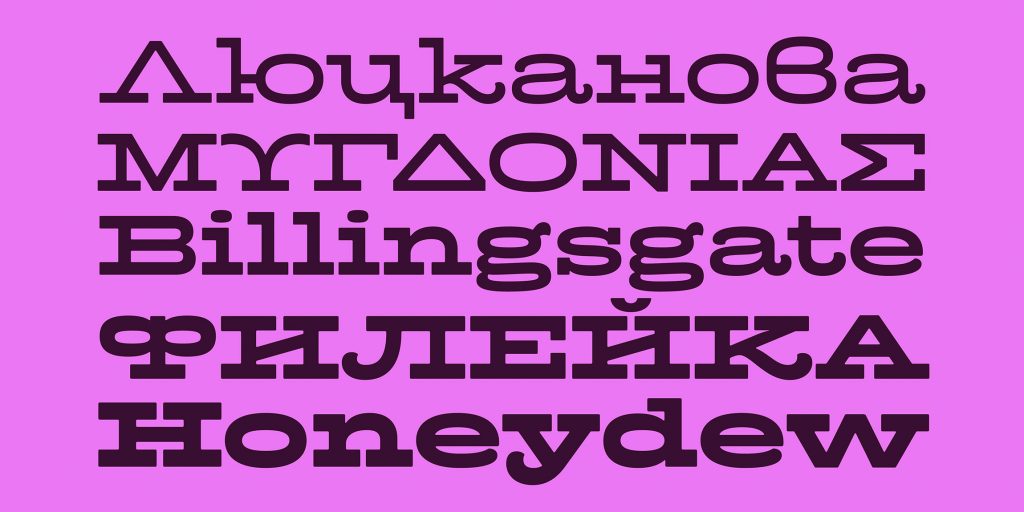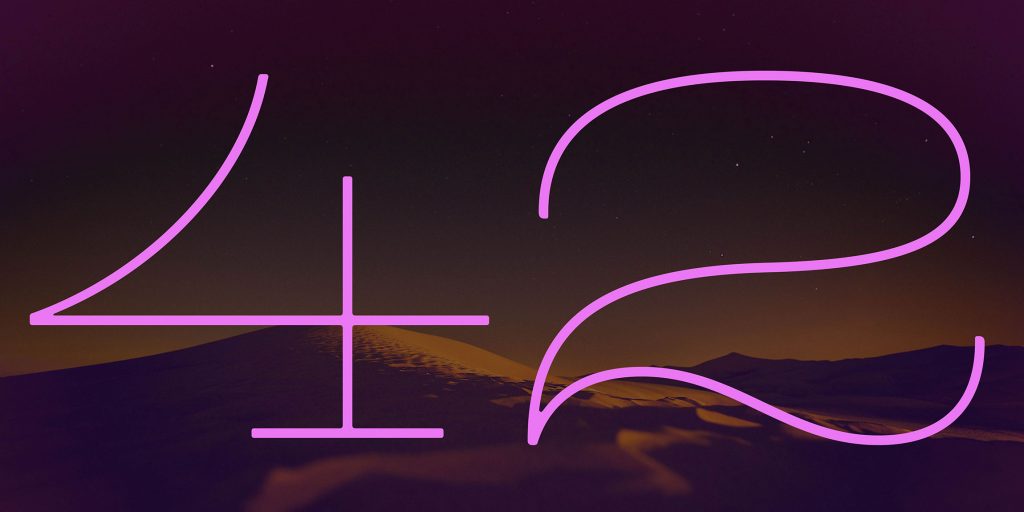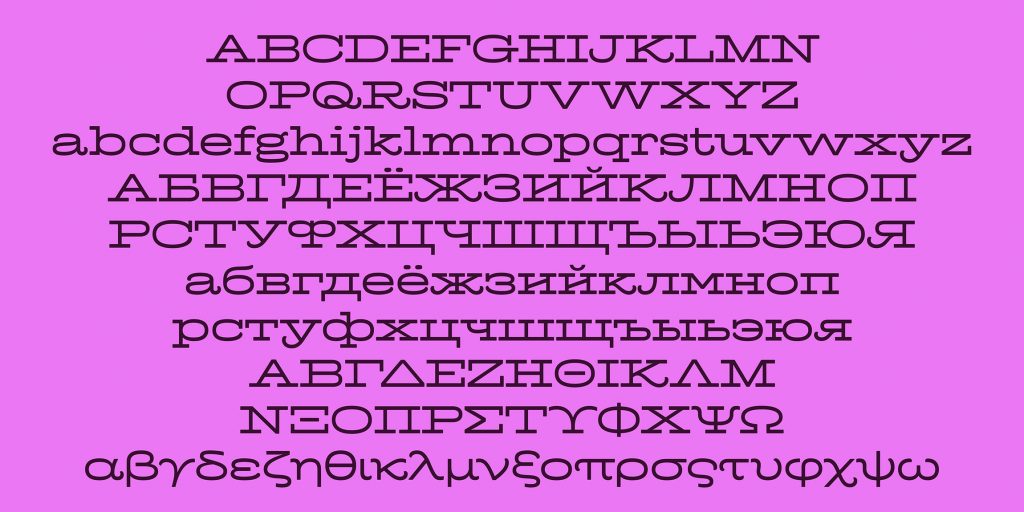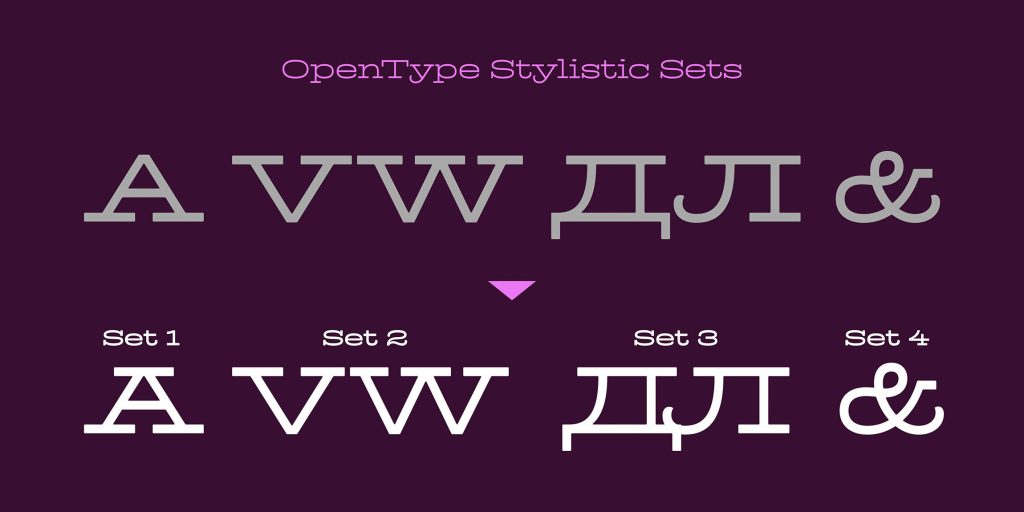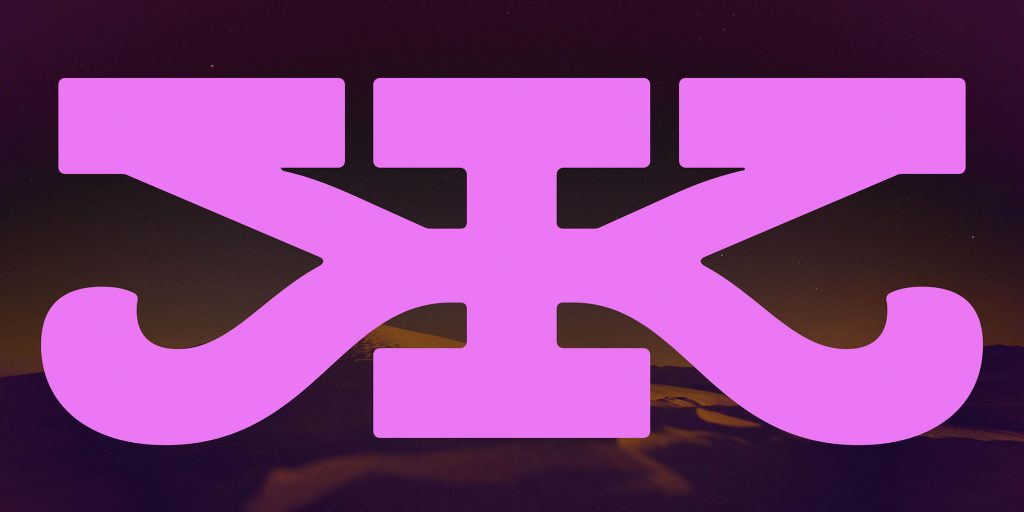
Name: Platia
Designer: Toshi Omagari
Foundry: Omega Type Foundry
Release date: December 2021
Back Story: Omagari has a long-standing fondness for the Hellenic Wide genre of typefaces (especially those seen in antique ephemera such as booklets, maps, and tickets). Hellenic Wide is a subcategory of wide, low-contrast 19th-century slab serif typefaces, originally available from several foundries under a variety of names: Antique Extended, Ionic Expanded, and Breite Jonisch (Wide Ionic in German). The designer says, “It’s nothing special on paper—a slab serif on a Scotch Roman skeleton—but its monolinear strokes and generous width have a unique presence.” He wanted to make his own version to correct a few troublesome details—a too-short tail on the R, letters such as A and M that appeared too small, and the poorly-curved lowercase with excessive contrast—to enhance the typeface’s overall elegance.
“The design process was fairly straightforward for the capitals, but slightly less so for the lowercase; those stroke thicknesses were generally too contrasted and looked out of place. I wanted to make both cases more harmonized and monolinear than the historical versions,” says Omagari. “The real challenge came in the darker weights when there was not enough space within x-height to maintain the same stroke thickness. In those cases like Ultrabold k, the inside strokes became thinner, giving the sense of reverse stress.”
What are its distinguishing characteristics? Platia follows the Scotch Roman letter structure, ubiquitous in the 19th century. Compared to the historical models, Omagari’s own twists include more curves and a unified variety of stroke endings to a curl and serif as seen here:
The light rounding unifies the details even further, while adding a soft letterpress feel. The typeface’s Greek and Cyrillic versions also embrace the curly quality of the Latin family.
The designer kept the traditional Hellenic Wide’s luxurious use of space but didn’t care for the way its uneven spacing sometimes seems overly exaggerated. To refine the letterspacing, he added contextual alternates with shorter serifs:
What should I use it for? Omagari says, “It’s useful for display purposes, especially those with generous text width or short text length. It works nicely on film and TV screens too; I personally like to use it for presentations.”
What other typefaces do you like to pair it with? Platia automatically steps up for titling and display. “Find a body text face that matches at least one of Platia’s key features: Victorian root, soft details, monolinear, open spacing,” says Omagari. “Klim’s Founders Grotesk Text is a great match because it comes from the same historical era. From my library, I like Codelia which matches Platia’s soft character and open spacing typical of monospaced metrics.”